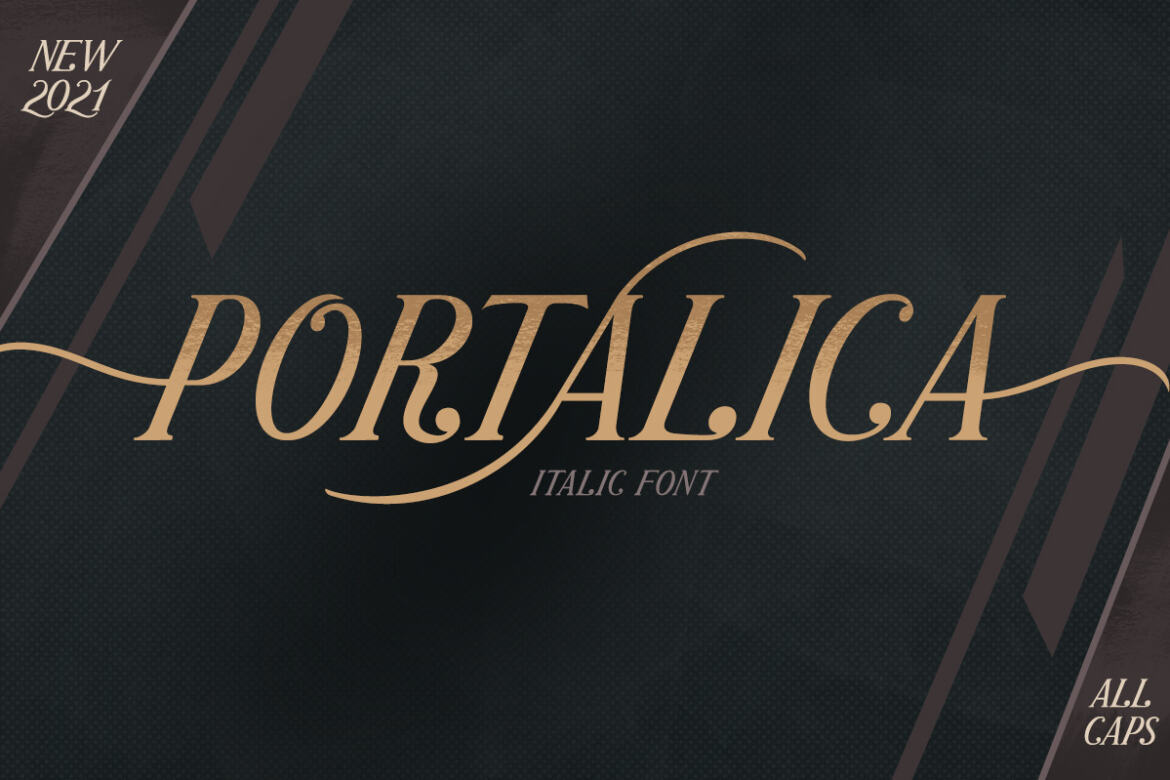
Portalica - Elegant Serif Font
Introducing our newest typeface called Portalica - A Stylish Italic Serif font. This typeface has many alternates with swashes that can make your lettering / logotype become more interesting.